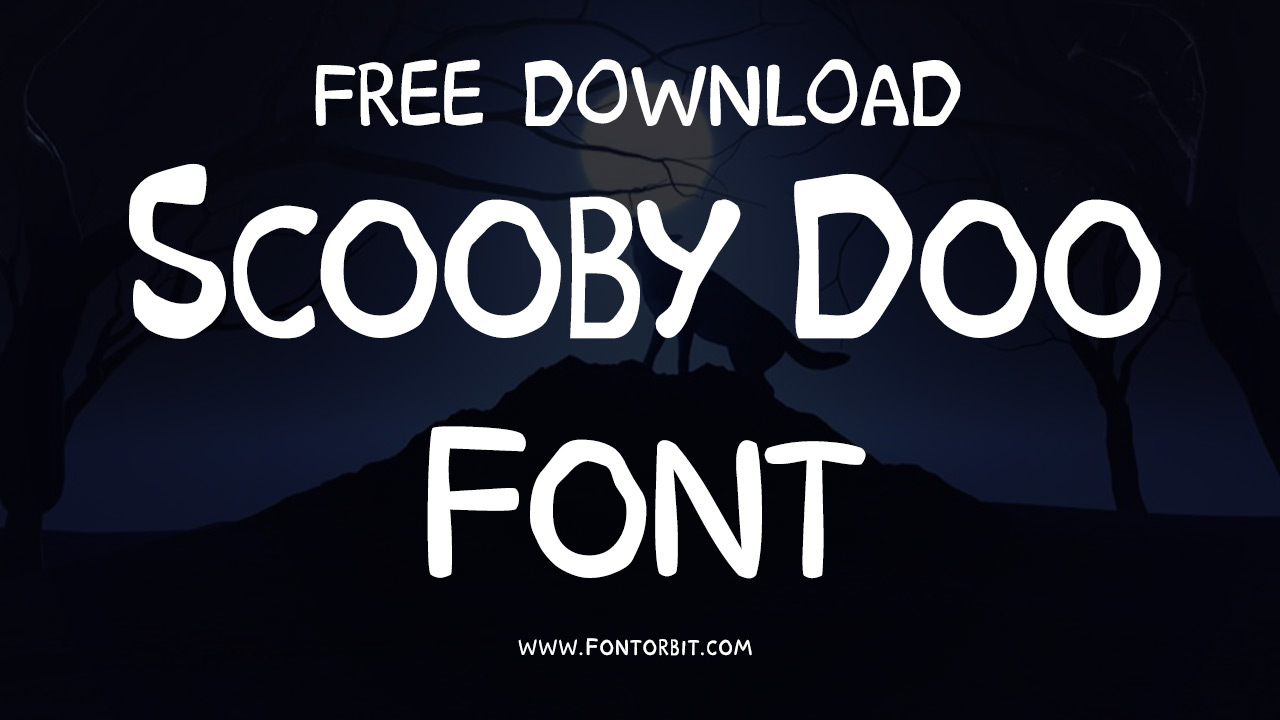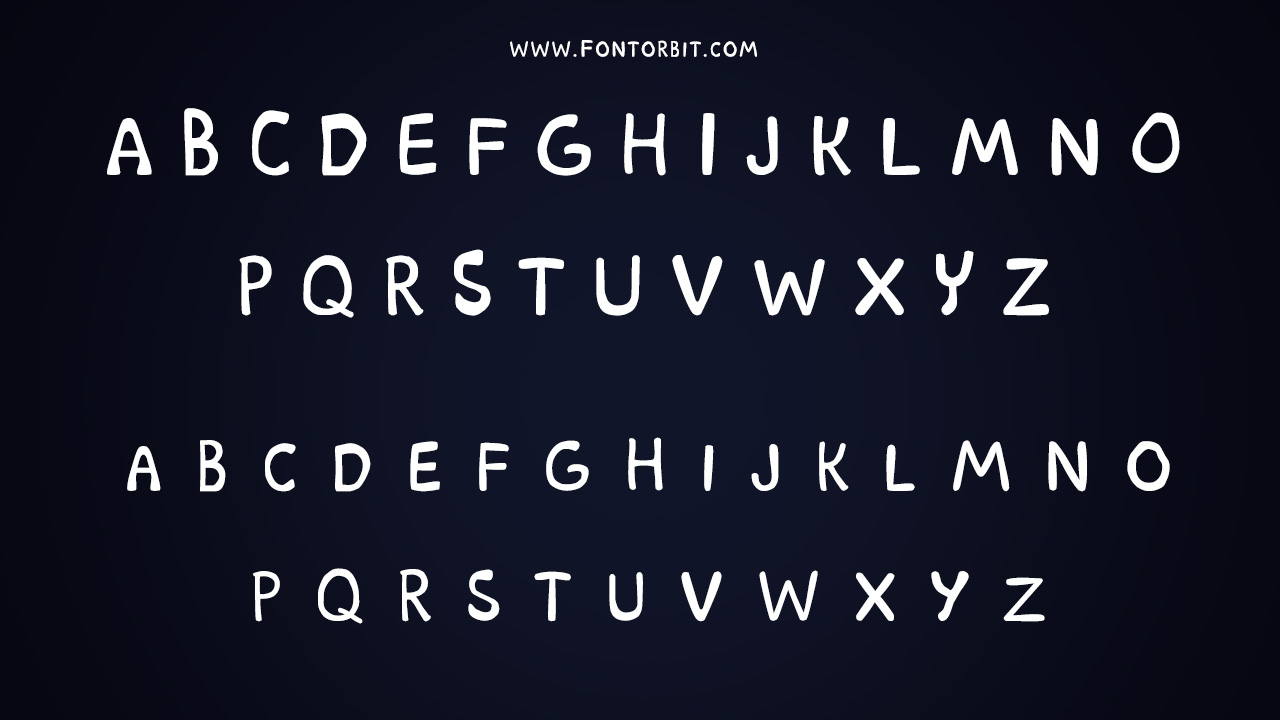
Scooby Doo Font is a playful and whimsical typeface created by Lauren Ashpole. Designed to capture the essence of mystery and adventure, this font brings the beloved characters of the iconic animated series to life. With its distinctive curves and fun design, Scooby Doo Font is perfect for a variety of creative projects.
Type Of The Scooby Doo Font (Font Family)
Scooby Doo Font falls into the category of display typefaces, characterized by its vibrant, cartoonish style that resonates with nostalgia. The Scooby Doo font family includes:
- Scooby Doo Regular
- Scooby Doo Bold
The Scooby Doo Font Found In Use
Scooby Doo Font is widely used in creative projects that require a whimsical and engaging touch. It works exceptionally well in designs for events, branding, and merchandise where a fun, light-hearted appearance is desired.
- Birthday invitations
- Comic strips
- Playful logos
- Children’s book covers
- Merchandise graphics
Scooby Doo Font is a delightful typeface that brings a sense of nostalgia and fun to any creative project. It’s perfect for making headlines stand out, enhancing invitations, and adding a playful touch to branding. Whether for personal or commercial use, Scooby Doo Font is a versatile choice that will make your designs shine.
1.What Are The Characteristics Of Scooby Doo Font?
The Scooby Doo Font features playful curves and bold strokes, embodying the fun and whimsical spirit of the beloved animated series.
2.What Projects Are Best Suited For Scooby Doo Font?
It’s ideal for birthday invitations, playful logos, comic strips, and any project that aims to evoke nostalgia and fun.
4.What Makes Scooby Doo Font Stand Out From Other Playful Fonts?
Its unique design captures the essence of the Scooby Doo series, making it a nostalgic choice that resonates with fans and designers alike.
5.What Are The Limitations Of The Scooby Doo Font In Print Media?
The Scooby Doo Font may compromise legibility at small sizes and lacks professionalism for corporate materials, making it less versatile in serious print contexts.